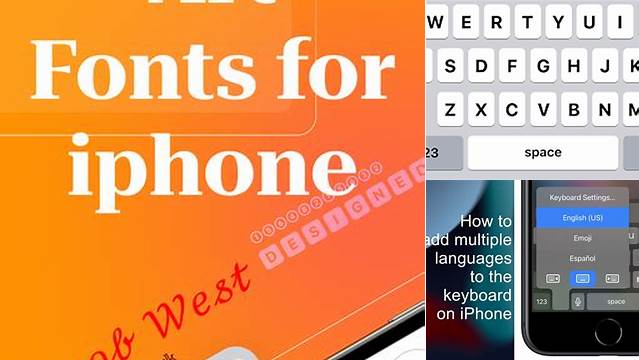
Cool Fonts & Keyboards For IPhone: Ultimate Guide
Hey guys! Ever wanted to spice up your iPhone with some cool fonts or customize your keyboard to reflect your unique style? Well, you've come to the right place! This is your ultimate guide to understanding everything about fonts for iPhone and how to tweak your keyboard settings. We'll dive deep into native options, third-party apps, and even some hidden tricks to make your iPhone truly yours. So, buckle up and let's get started!
Understanding iPhone Fonts
Let's start with the basics. Your iPhone comes with a default system font, typically San Francisco (SF), designed by Apple. It's clean, legible, and optimized for readability across various screen sizes. But, let’s be honest, sometimes you just want something different, right? While you can't technically change the system-wide font without jailbreaking (which we definitely don't recommend for security reasons), there are still plenty of ways to customize the fonts you see on your iPhone. Think about it – from messaging apps to note-taking tools, the possibilities for injecting a bit of your personality are endless.
Font availability varies quite a bit. Some apps allow you to change the font within their settings, offering a selection of pre-loaded options. Others might require you to use a third-party keyboard that supports custom fonts. The key is to explore the settings of your favorite apps and see what's possible. You might be surprised at how many options are hidden away! Beyond the aesthetic appeal, consider how the font impacts readability. A fancy, decorative font might look cool, but if it strains your eyes after a few minutes, it's probably not the best choice for everyday use. Opt for fonts that strike a balance between style and clarity. Also, keep accessibility in mind. Ensure that the font you choose is easy to read for people with visual impairments. Increase the font size or choose a font with high contrast to improve readability. There are many different types of fonts you can choose from! The iPhone operating system also lets you adjust the text size, which indirectly affects the font's appearance. You can make the text bolder, which increases its visual weight and enhances readability. While not a direct font change, these adjustments can significantly improve the overall user experience. You can find these settings in the Accessibility section of the Settings app. When picking fonts, think about the mood you want to convey. A handwritten font might feel personal and informal, while a sans-serif font can project a modern and clean image. Consider the context in which you'll be using the font. For professional emails, stick to classic and legible fonts. For personal notes or creative projects, feel free to experiment with more expressive options. Always test the font on different devices and apps to ensure it renders correctly. Some fonts might not be fully supported on all platforms, leading to display issues. Before committing to a font, send a test message or create a sample document to see how it looks on different screens.
Custom Keyboards with Fonts
Now, let's talk keyboards! The default iPhone keyboard is functional, but let’s face it, a little dull. The good news is that Apple allows you to install third-party keyboards, and many of them come with built-in font options. This is where things get interesting. Apps like Gboard (Google's keyboard) and SwiftKey offer a range of customization options, including themes, layouts, and, of course, fonts. These keyboards effectively let you use different fonts in any app that uses the keyboard, which is pretty much everything! To install a custom keyboard, head to the App Store and download your chosen keyboard app. Once installed, go to Settings > General > Keyboard > Keyboards > Add New Keyboard and select the keyboard you just installed. Don't forget to allow full access (this is required for some features like custom fonts and themes), but be aware of the privacy implications. Only grant full access to keyboards from developers you trust.
Once you've installed your custom keyboard, open the app and explore the settings. Look for options related to appearance, themes, or fonts. Some keyboards will let you download additional font packs, while others might offer a selection of pre-installed fonts. Experiment with different fonts to find one that suits your style. When choosing a keyboard, consider its features and functionality. Some keyboards offer advanced features like gesture typing, predictive text, and clipboard management. Others might focus on customization options like themes, layouts, and fonts. Pick a keyboard that meets your needs and preferences. Always keep an eye on the keyboard's performance. A poorly optimized keyboard can slow down your typing and drain your battery. Read reviews and try out different keyboards to find one that's smooth and responsive. Consider the keyboard's privacy policy before granting full access. Some keyboards might collect your typing data for personalization purposes. If you're concerned about privacy, choose a keyboard from a reputable developer with a clear and transparent privacy policy. Regularly update your keyboard to ensure you have the latest features and security updates. Keyboard developers often release updates to fix bugs, improve performance, and add new functionality. Make sure your keyboard is always up to date to enjoy the best possible experience. Explore the keyboard's customization options to personalize it to your liking. Adjust the keyboard's height, width, and layout to optimize it for your typing style. Change the keyboard's theme to match your mood or style. Customize the keyboard's font to make it more readable or visually appealing.
Apps with Font Customization
Beyond keyboards, many individual apps offer font customization options within their settings. Messaging apps like Telegram and WhatsApp, note-taking apps like Bear and Ulysses, and even some social media apps like Instagram allow you to tweak the font to your liking. This is a great way to personalize your experience within specific apps without affecting the system-wide font. For example, in Telegram, you can go to Settings > Appearance > Text Size and Font to adjust the font size and choose from a few different font options. In WhatsApp, the font customization is more limited (you can only adjust the text size), but it's still a welcome feature. The key here is to explore the settings of your favorite apps and see what font customization options are available. You might be surprised at how many apps offer this feature! When choosing fonts, think about how they affect the app's overall aesthetic. Pick fonts that match the app's design and style. For example, a modern and minimalist app might look best with a sans-serif font, while a more classic and traditional app might suit a serif font. Always test the font on different screens and devices to ensure it renders correctly. Some fonts might not be fully supported on all platforms, leading to display issues. Before committing to a font, send a test message or create a sample document to see how it looks on different screens. Experiment with different font sizes and styles to find what works best for you. Adjust the font size to make the text more readable, especially on smaller screens. Try different font styles to add personality and flair to the app's interface. Pick fonts that are easy to read and don't strain your eyes. Avoid overly decorative or complex fonts that can be difficult to decipher. If you have visual impairments, choose fonts that are specifically designed for accessibility. These fonts often have high contrast and clear, simple shapes. Regularly check for app updates, as developers often add new font customization options in updates. Keep an eye on the app's release notes to see if any new font features have been added. When selecting a font for an app, prioritize readability, aesthetics, and compatibility with various devices and screen sizes to ensure a consistent and pleasant user experience.
Hidden Font Tricks
Okay, this is where things get a little nerdy, but trust me, it's worth it! While you can't directly change the system font, there are some clever workarounds you can use to subtly influence the font appearance. For example, did you know that you can use Unicode characters to create fake bold or italic text? It's not a true font change, but it can add emphasis to your text in apps that don't support formatting. Another trick involves using text replacement shortcuts. You can create a shortcut that automatically replaces a certain word or phrase with a stylized version using Unicode characters. For example, you could create a shortcut that replaces "hello" with a bolded version of "hello" using Unicode characters. It's a bit of a workaround, but it can be a fun way to add some personality to your text. These hidden font tricks can be quite valuable. Experimenting with Unicode characters to create unique text styles. Unicode is a vast character encoding standard that includes a wide range of symbols and glyphs. You can use these characters to create text that looks different from the standard font. However, keep in mind that not all apps and platforms support all Unicode characters, so your stylized text might not display correctly everywhere. Using third-party apps to generate stylized text and then copying and pasting it into other apps. There are many apps available that allow you to create stylized text with different fonts, colors, and effects. You can then copy this text and paste it into other apps, such as messaging apps or social media apps. However, keep in mind that the formatting might not be preserved perfectly when you paste the text into another app. Using online font generators to create custom fonts and then installing them on your device. There are many online font generators that allow you to create custom fonts from scratch or by modifying existing fonts. You can then download these fonts and install them on your device. However, keep in mind that installing custom fonts on iOS devices can be complex and might require jailbreaking your device, which is not recommended. Before attempting any of these tricks, always back up your data and proceed with caution. Some of these techniques might not be officially supported by Apple and could potentially cause issues with your device. If you're not comfortable with these more advanced techniques, stick to the simpler font customization options offered by apps and keyboards.
Font Size and Accessibility
Finally, let's talk about font size and accessibility. Making sure your text is readable is crucial, especially if you have any visual impairments. iPhone offers several accessibility features that can help improve readability, including the ability to adjust the text size, bold the text, and reduce transparency. To adjust the text size, go to Settings > Accessibility > Display & Text Size > Larger Text. Here, you can use the slider to increase or decrease the text size. You can also enable the "Larger Accessibility Sizes" option to further increase the text size beyond the default maximum. To bold the text, go to Settings > Accessibility > Display & Text Size > Bold Text. Enabling this option will make all the text on your iPhone bolder, which can improve readability for some people. To reduce transparency, go to Settings > Accessibility > Display & Text Size > Reduce Transparency. Reducing transparency can make the text more legible by increasing the contrast between the text and the background. These accessibility features are not just for people with visual impairments. They can also be helpful for anyone who wants to improve the readability of their iPhone's display. Experiment with different settings to find what works best for you. Always prioritize readability over aesthetics. A fancy font might look cool, but if it's difficult to read, it's not worth it. Choose fonts that are clear, simple, and easy to decipher. Consider the lighting conditions when choosing fonts and adjusting text sizes. In bright sunlight, you might need to increase the text size to make it more readable. In low-light conditions, you might want to reduce the text size to avoid eye strain. Use the "Zoom" feature to magnify specific areas of the screen. The Zoom feature can be helpful for reading small text or viewing detailed images. Customize the display settings to match your individual needs and preferences. Everyone has different visual preferences, so it's important to customize the display settings to create a comfortable and enjoyable viewing experience.